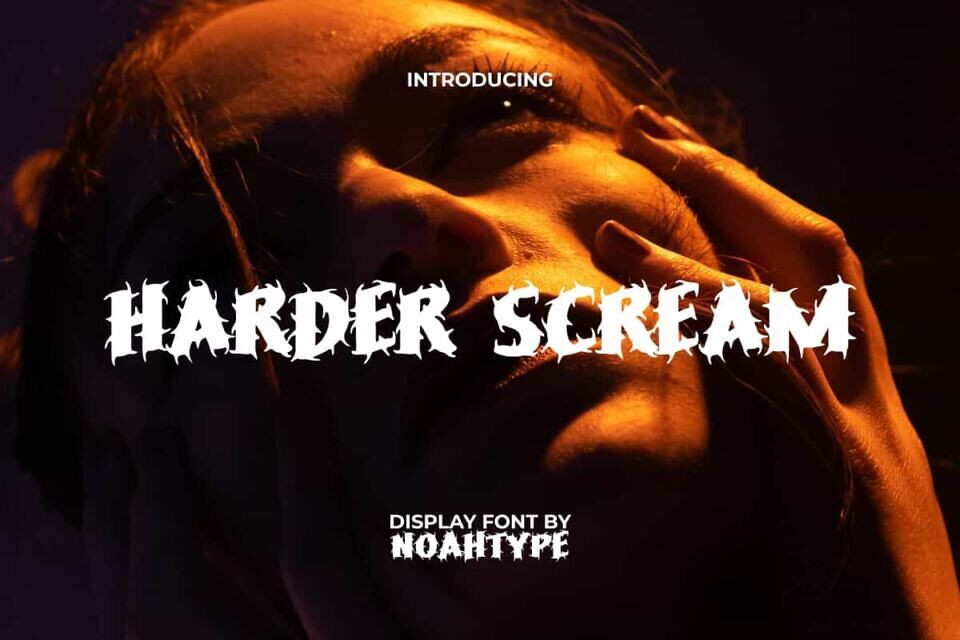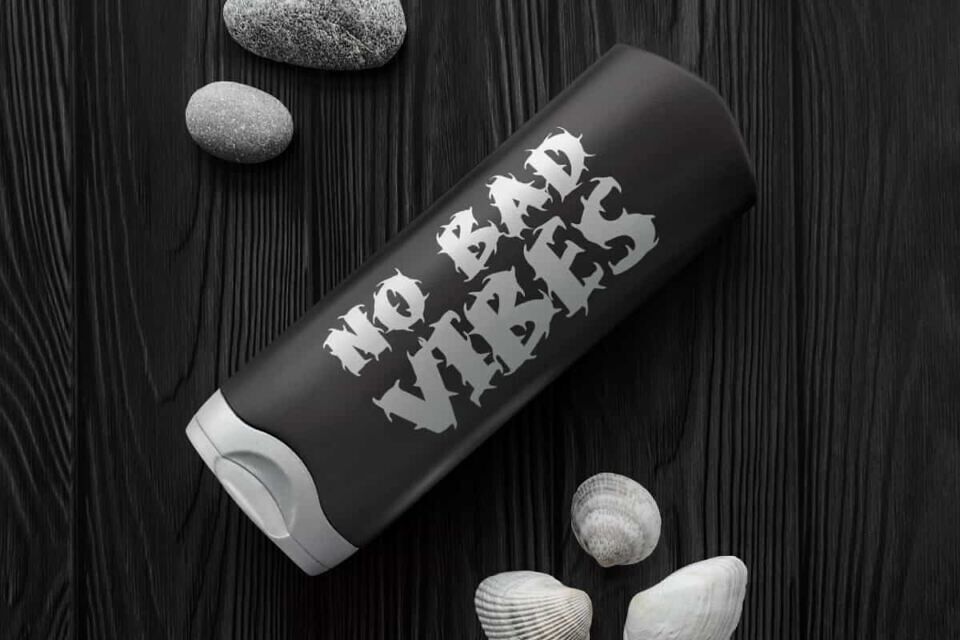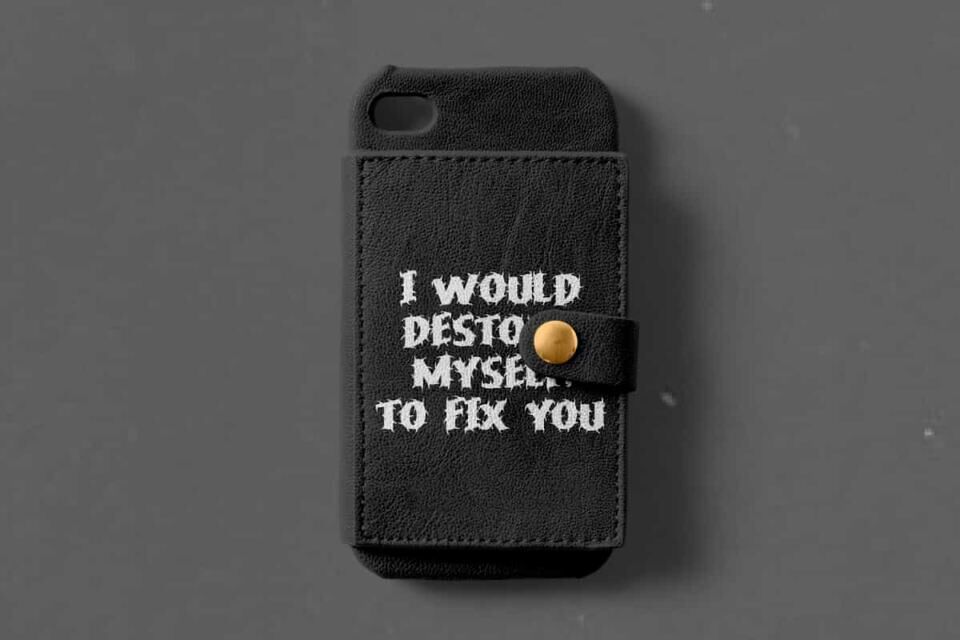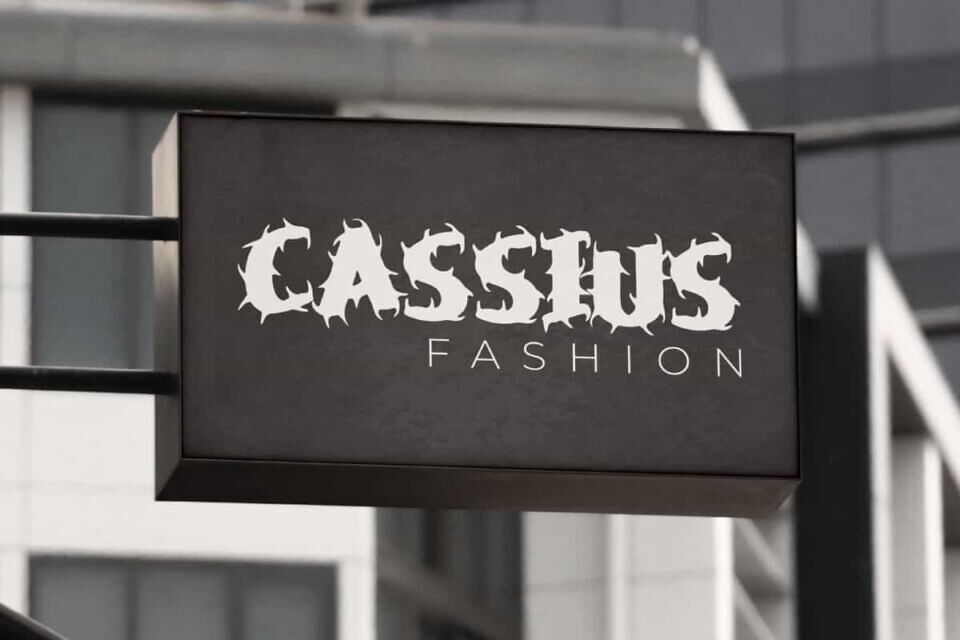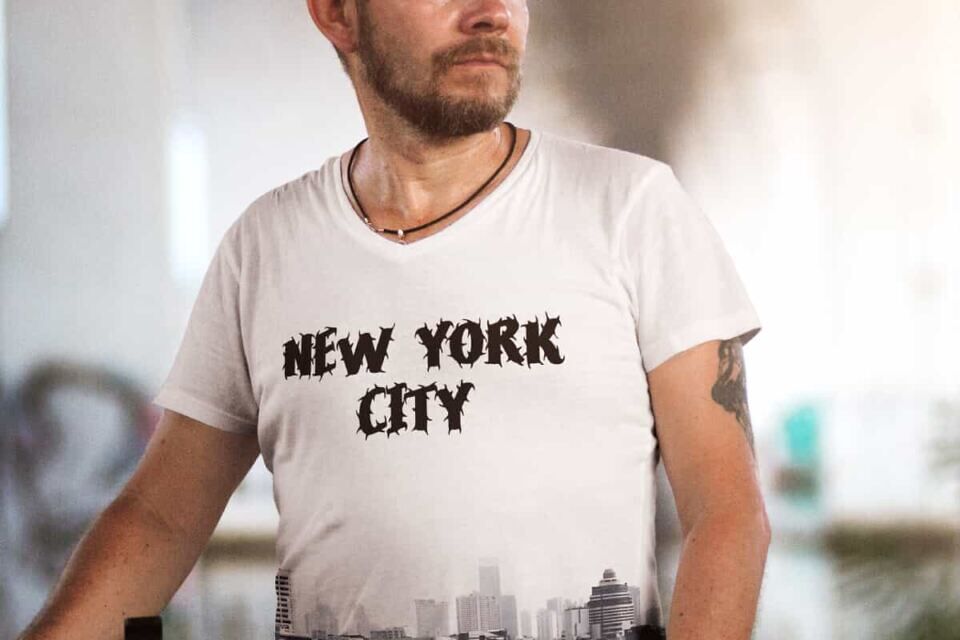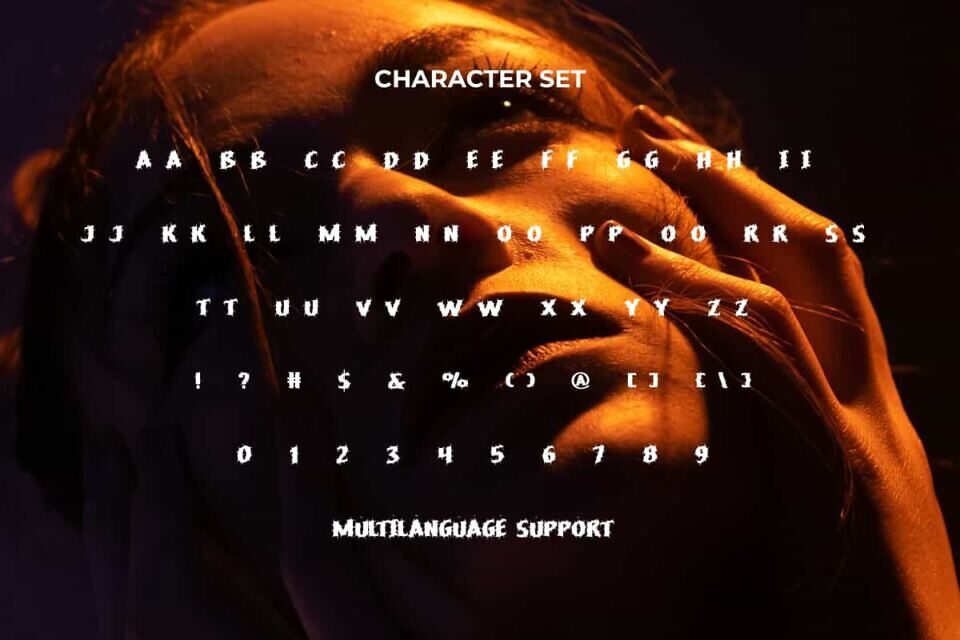
Harder Scream Font
Harder Scream Font is a bold and horror display font with black letter style, created by NoahType. This font is surrounded by small thorns around the characters so it can give a scary impression. It will be perfect for any designs, such as signage, poster, brand image, cover, custom design, invitation, label, marketing material, menu, printing, product packaging, quotes, website, and many more!
Harder Scream Font includes full set of ALL CAPS for Uppercase and Lowercase Basic Characters, Numerals, Punctuation, and Symbol. This font will make your design amazing and also a perfect choice for many industries, such as fashion, game, movie, barber shop, accessories, advertising, art, café, event or festival, printing, publishing, etc.